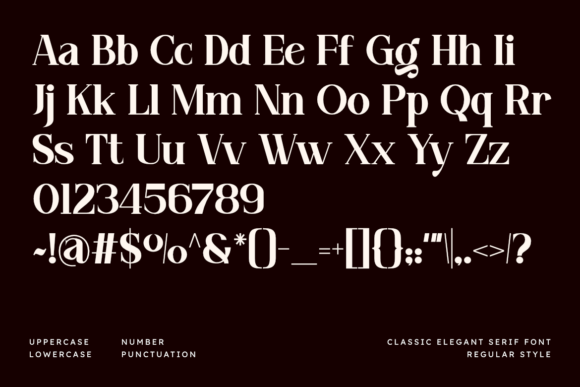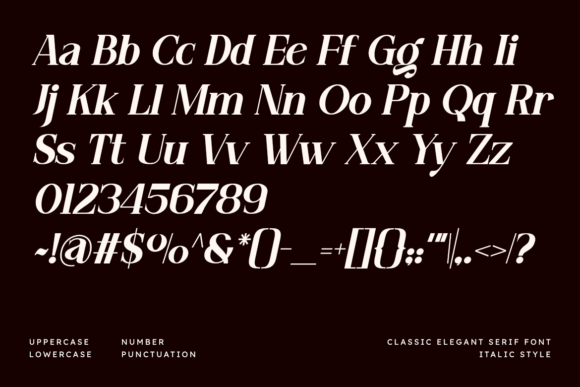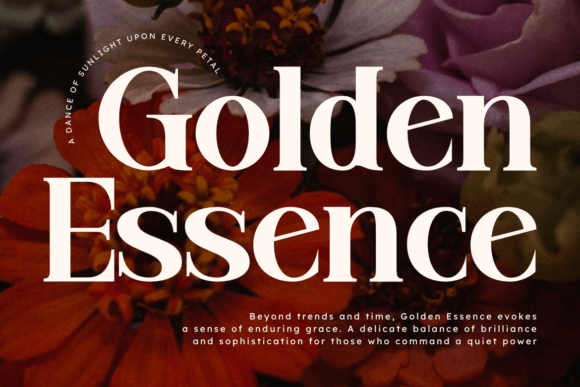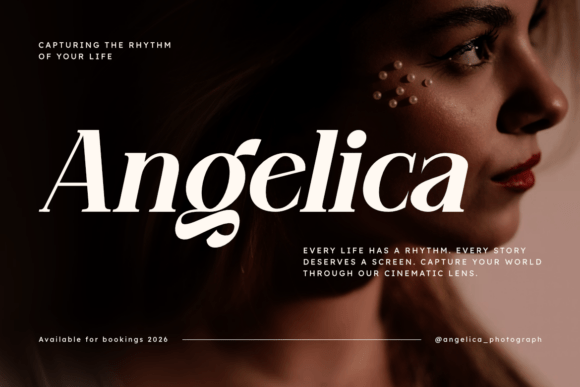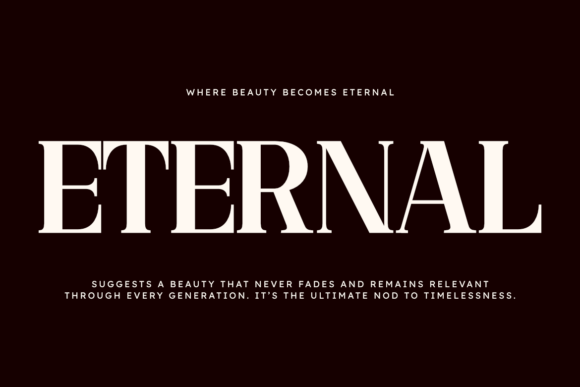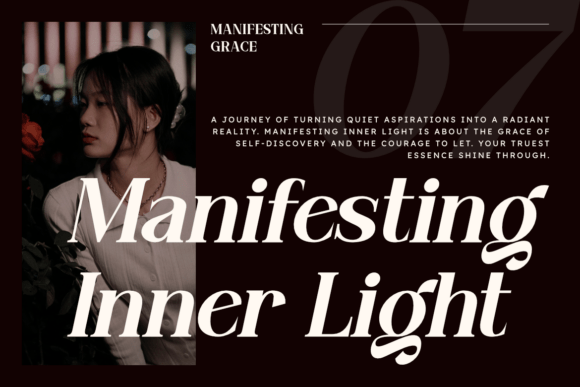
The Quest for the Perfect Font: How Fresh Orange Stole My Heart
I still remember the frustration of scrolling through font after font, searching for the perfect one to bring my design project to life. It was for a client’s high-end food brand, and I needed something that exuded elegance, sophistication, and a hint of playfulness. That’s when I stumbled upon Fresh Orange, a classic yet contemporary serif font that radiates charm and elegance. With its unique soft curves and playful terminals, this font captures a perfect balance between vintage retro vibes and modern sophistication.
What I Love About Fresh Orange
Here’s what makes Fresh Orange a standout font:
- ✨ Elegant and refined: Fresh Orange has a sophisticated feel that’s perfect for high-end branding, luxury packaging, and stylish magazines.
- ✅ Playful and approachable: The soft curves and playful terminals add a touch of whimsy, making it ideal for food, lifestyle, and organic product designs.
- 💡 Versatile: The font family includes both Regular and Italic styles, giving you the flexibility to create elegant hierarchies in your layouts.
- 📦 Easy to read: The clear and legible design makes it perfect for body text, headings, and titles.
While Fresh Orange is an amazing font, there are a few things to keep in mind:
- ⚠️ Limited language support: Fresh Orange might not support all languages, so be sure to check the character set before using it for a multilingual project.
- 🤔 No condensed styles: If you need a more compact font, you might find Fresh Orange a bit too spacious.
The Story Behind Fresh Orange
Fresh Orange was designed with the goal of creating a font that embodies both classic elegance and modern playfulness. The designer aimed to craft a font that would add a “juicy” personality to creative projects, making it perfect for food, lifestyle, and organic product designs. The result is a font that feels both sophisticated and approachable.
| Author | Funtype Co. |
Here are some common questions about Fresh Orange:
| Q: What type of projects is Fresh Orange best suited for? | A: Fresh Orange is perfect for high-end food brands, lifestyle magazines, organic product packaging, and any project that requires a touch of elegance and playfulness. |
| Q: Does Fresh Orange support OpenType features? | A: Yes, Fresh Orange supports OpenType features like ligatures and stylistic alternates, which can be accessed in compatible software like Adobe Creative Cloud apps. |
| Q: Can I use Fresh Orange for body text? | A: While Fresh Orange is elegant and refined, it’s best used for headings and titles. For body text, you may want to pair it with a more traditional serif font. |
| Q: Is Fresh Orange suitable for digital use? | A: Absolutely! Fresh Orange is designed to be legible on both print and digital platforms, making it perfect for websites, social media, and more. |